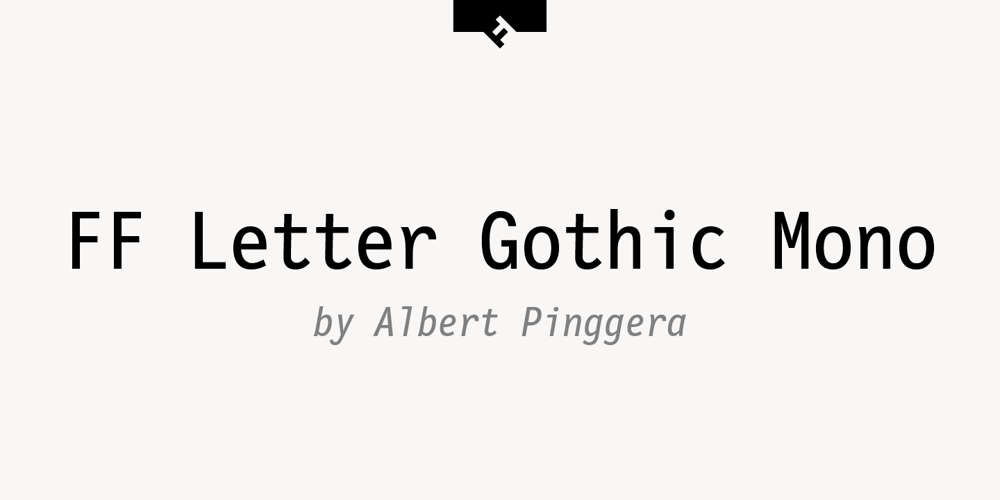
FF Letter Gothic Mono Font Family was designed by Albert Pinggera and published by FontFont. FF Letter Gothic Mono contains 6 styles and family package options. Italian type designer Albert Pinggera created this sans FontFont in 1998. The family has 6 weights, ranging from Light to Bold (including italics) and is ideally suited for editorial and publishing, logo, branding and creative industries as well as software and gaming. FF Letter Gothic Mono provides advanced typographical support with features such as ligatures, alternate characters, case-sensitive forms, super- and subscript characters, and stylistic alternates. It comes with tabular oldstyle and tabular lining figures. This FontFont is a member of the FF Letter Gothic super family, which also includes FF Letter Gothic Slang and FF Letter Gothic Text.